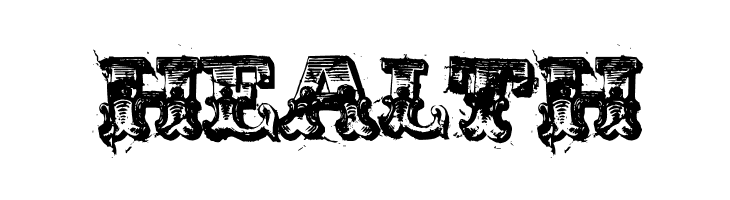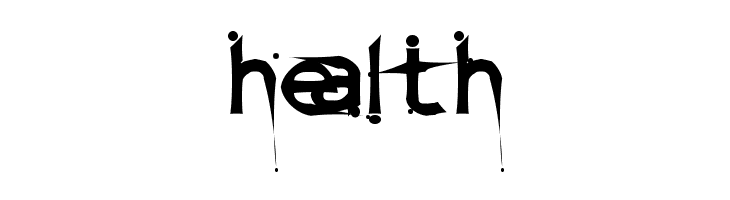
A bold, decorative font with intricate Western-inspired details.
A bold, decorative font with vintage, engraved detailing.
A bold, distressed font with a vintage, industrial style.
A bold, grungy font with a distressed, brush-painted appearance.
A bold, grungy, and decorative font with intricate details and distressed textures.
A bold, condensed font with a modern, industrial look and unique cut-out details.
A bold, hand-drawn font with a playful, artistic style.
A decorative and artistic font with high contrast and intricate details.